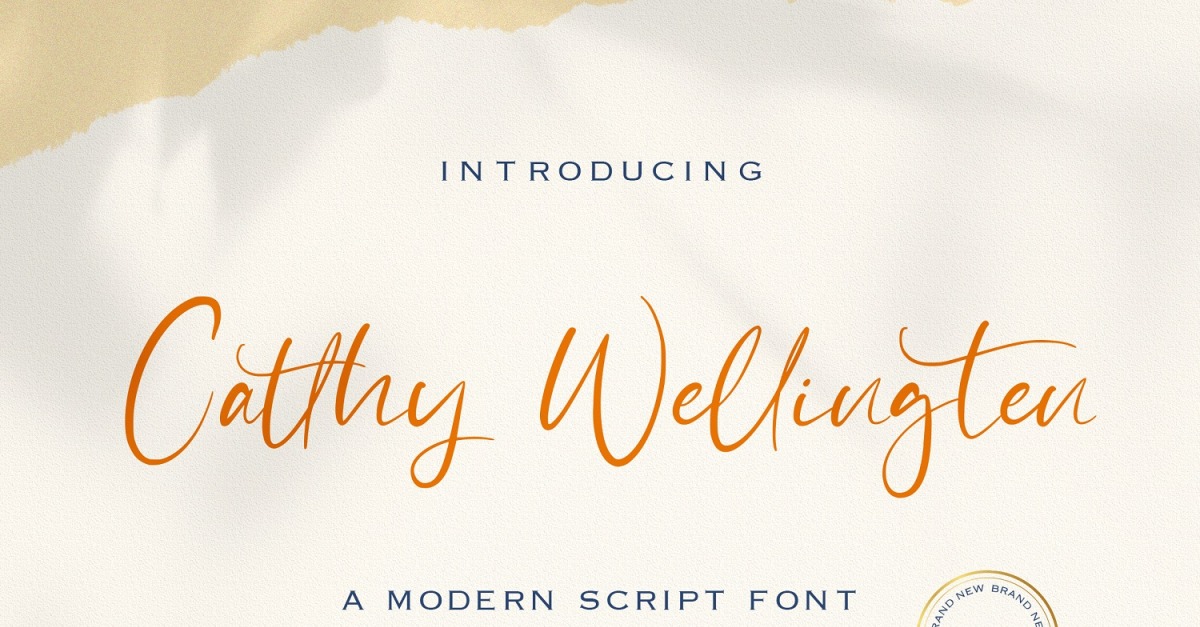
Catthy Wellingten - Modern Cursive Font
Introducing Catthy Wellingten - Modern Script Font
The Catthy Wellingten is a modern script font. It has a playful and feminine look, which is great for wedding invitations and anniversaries, blogs and logos. Catthy Wellingten is a handwritten font, described by an elegant touch, perfect for your favorite projects.
- Alternates
- Ligatures
- Uppercase and Lowercase letters
- Numbering and Punctuations
- Multilingual Support